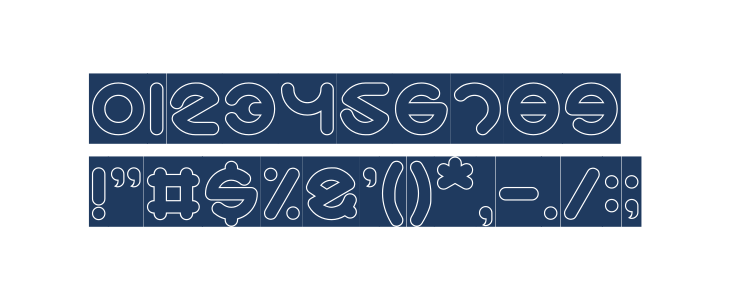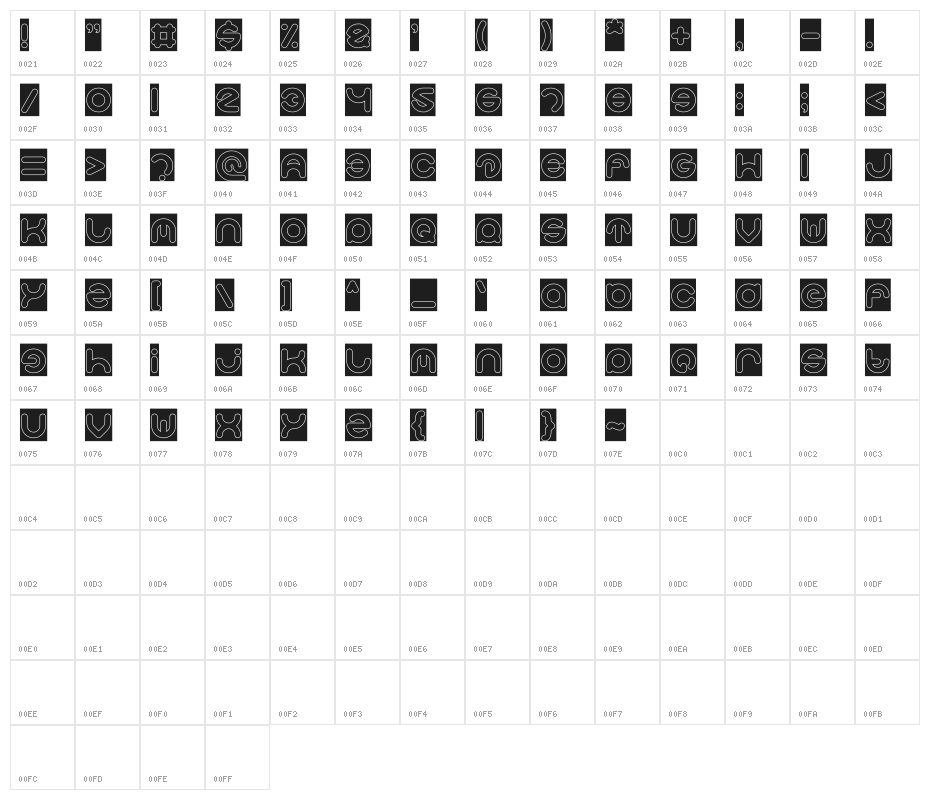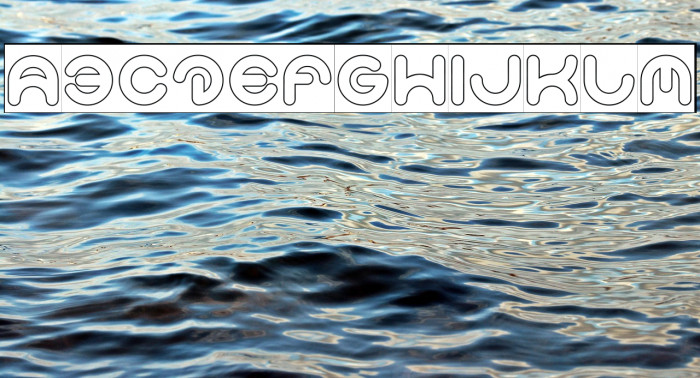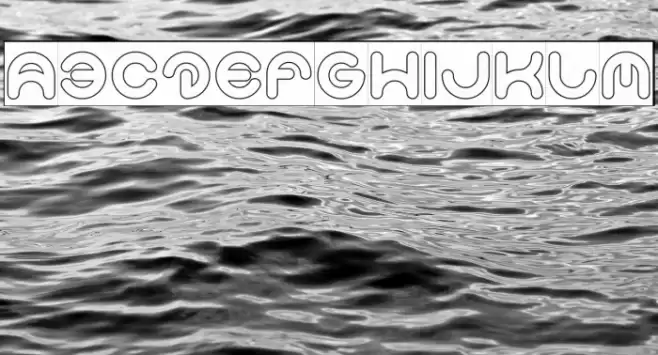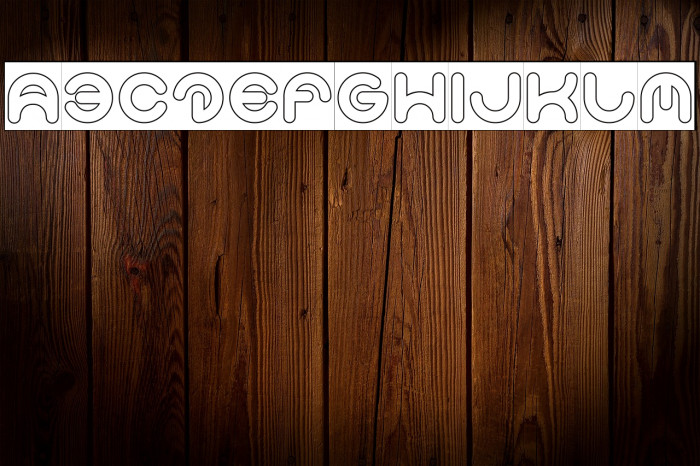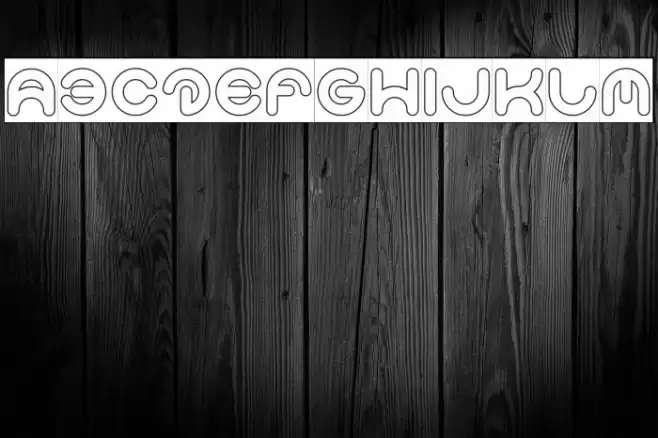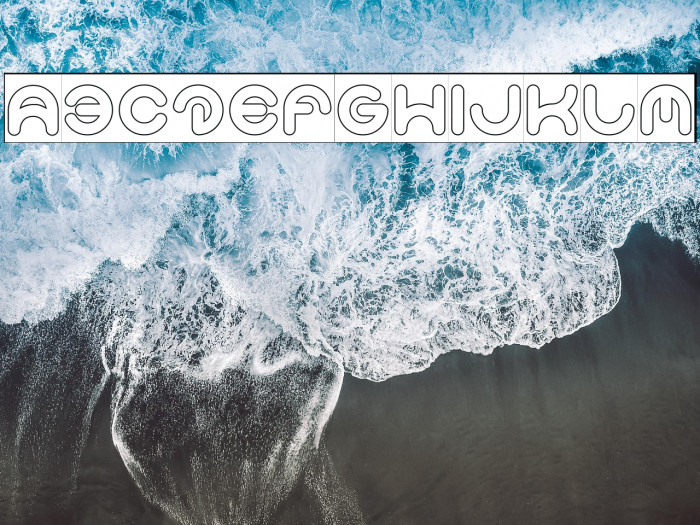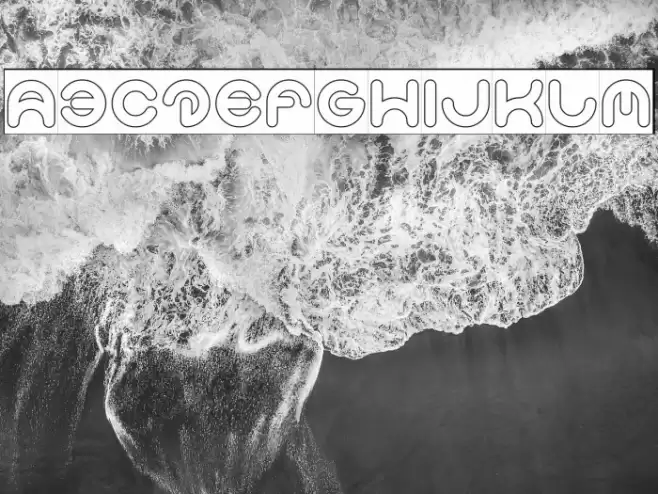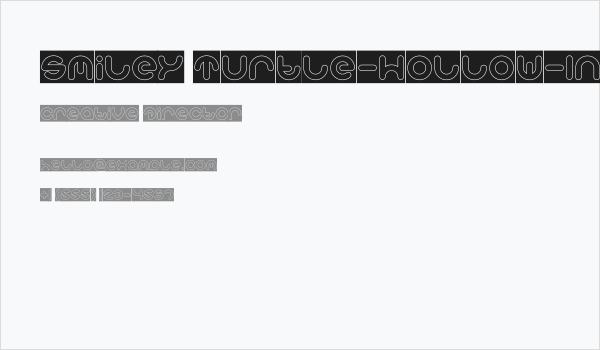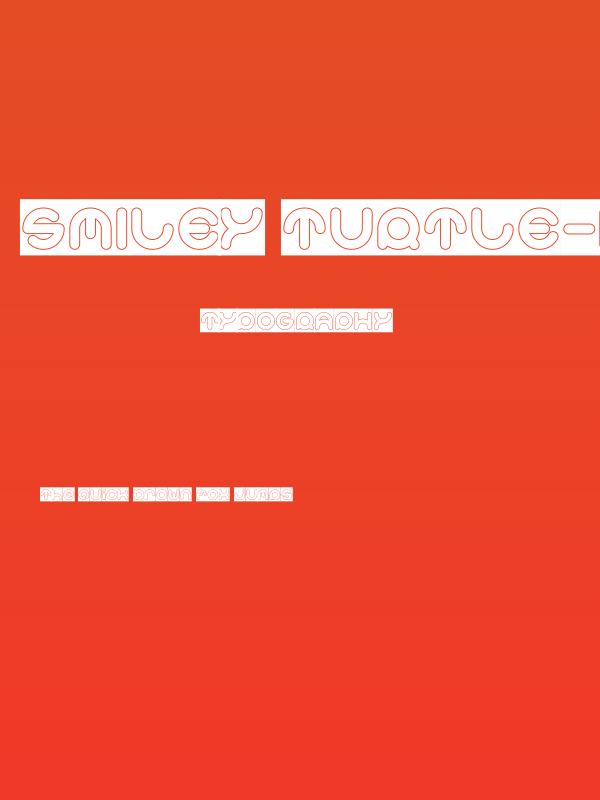
Smiley Turtle-Hollow-Inverse Font
Smiley Turtle-Hollow-Inverse Description
This font features a playful and modern design with hollow, rounded characters that create a unique and eye-catching appearance. The letters are bold and have a consistent thickness throughout, giving them a uniform look. The hollow nature of the characters adds a sense of lightness and fun, making it suitable for creative and informal projects. The font includes both uppercase and lowercase letters, numbers, and a variety of special characters, all maintaining the same stylistic approach. Its distinct style makes it stand out, while the rounded edges provide a friendly and approachable feel.
Proposed ProjectsIdeal for children's books, playful branding, posters, and creative digital content.